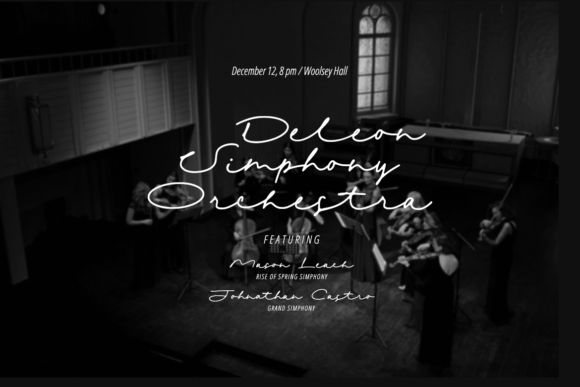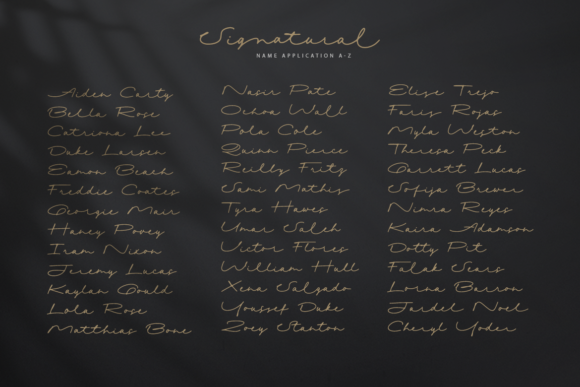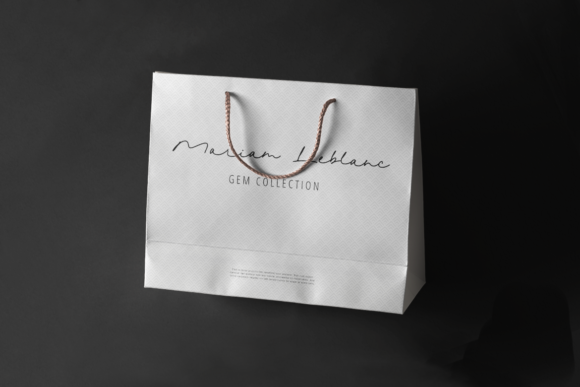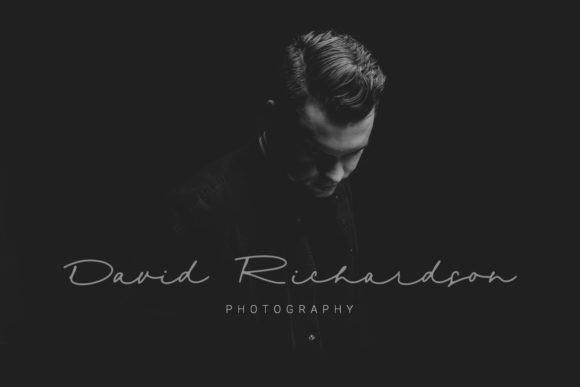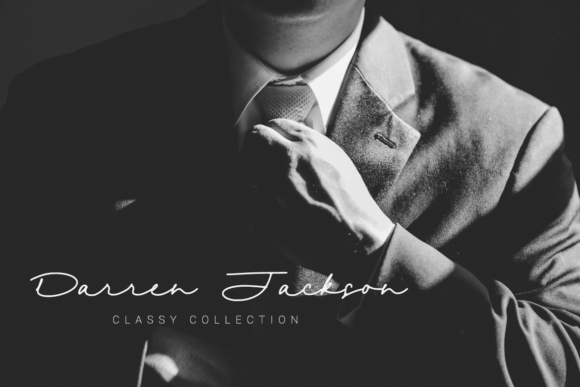
Signatural Font
About Signatural Font
Signatural is a thin lettered and delicate script font. This gentle font will look gorgeous on a variety of design ideas. It will add a joyful and romantic touch to each of your projects!